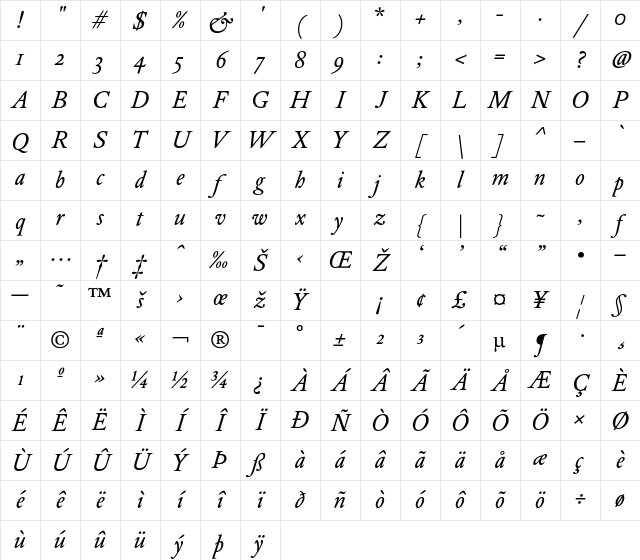
DTLElzevirSTBook Italic Free Font
DTLElzevirSTBook Italic
Design Context for DTLElzevirSTBook
DTLElzevirSTBook is a composed and adaptable typeface that performs quietly and consistently across a wide range of design contexts. The slanted form adds forward momentum and visual energy.
Pro Tip: Use DTLElzevirSTBook for emphasis, pull quotes, and subheadings where its slanted energy can add rhythm to the layout.